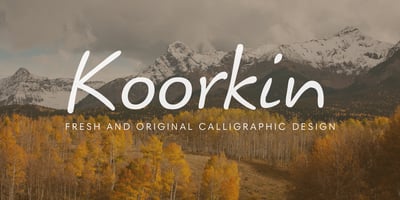
Koorkin Font Family was designed by George Ryan and published by Monotype. Koorkin contains 4 styles and family package options. “I originally drew the primary characters with a felt tip marker, scanned them and then proceeded to noodle on the computer,” says George Ryan of his new typeface, Koorkin. “Over the years, I’ve designed many original typefaces, but Koorkin has become one of my favorites. I’ve worked on hundreds of highly structured text faces. For the most part, the roots of all of them can be found in the handwritten letterforms we learn as children. I enjoy going back to these shapes whenever the opportunity presents itself. ”The happy result of Ryan‘s felt tip marker sketches and his love of simple letterforms is a new family of upright and italic scripts in medium and bold weights.